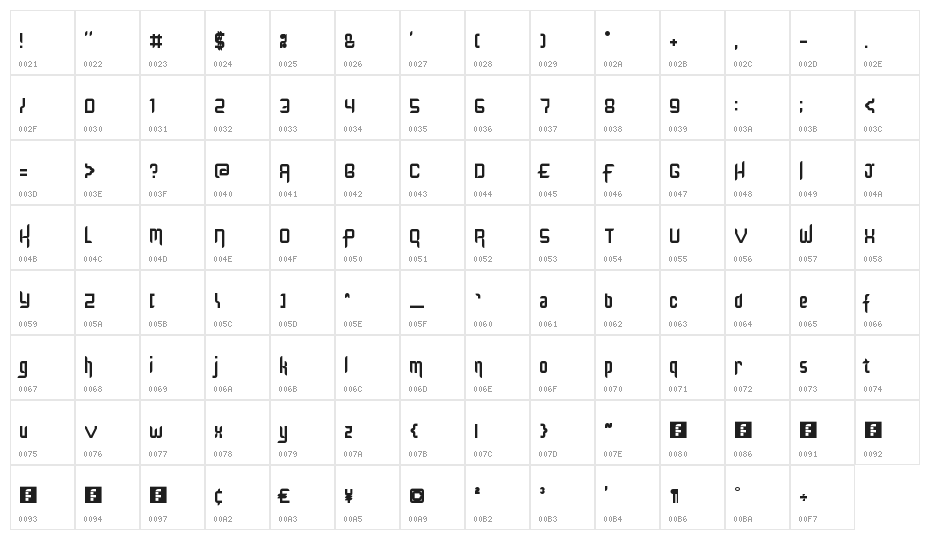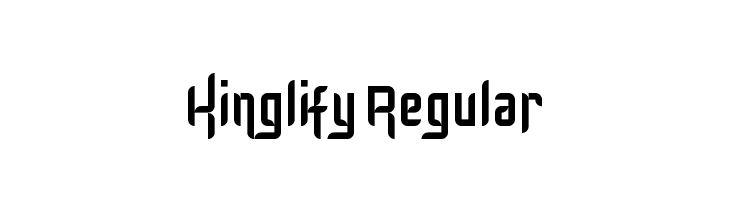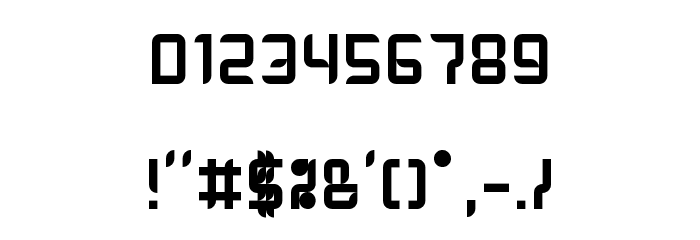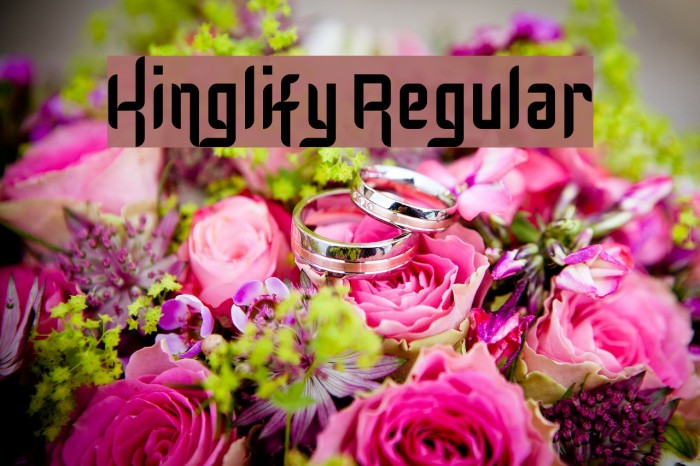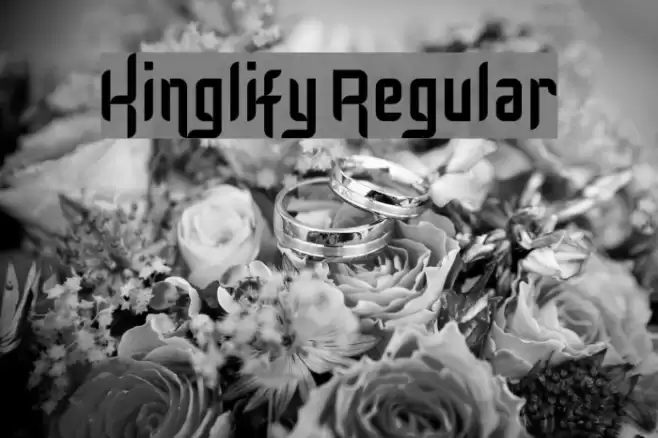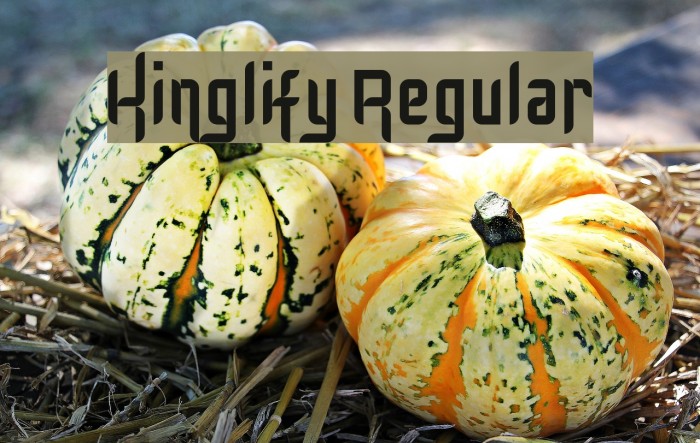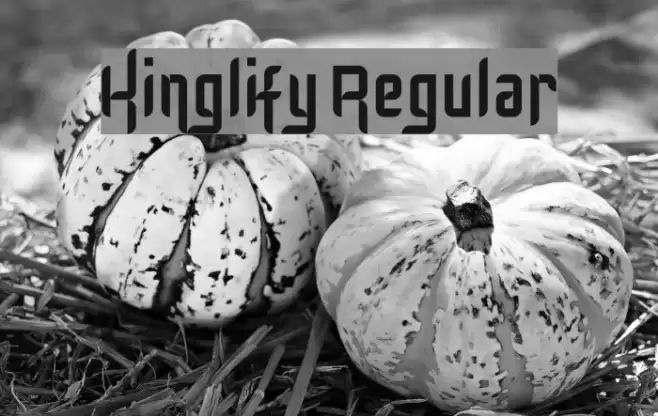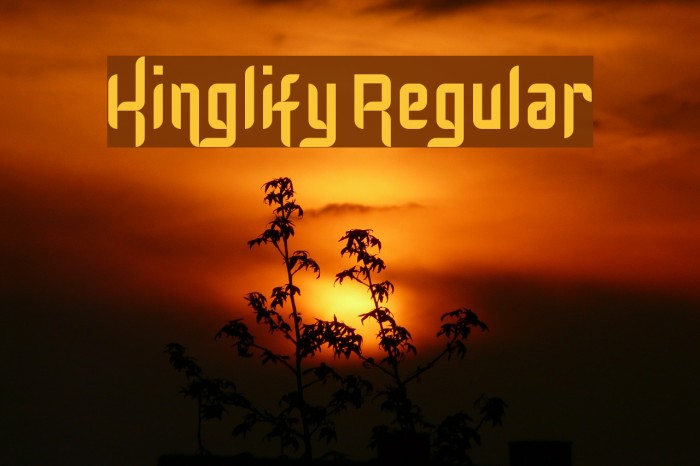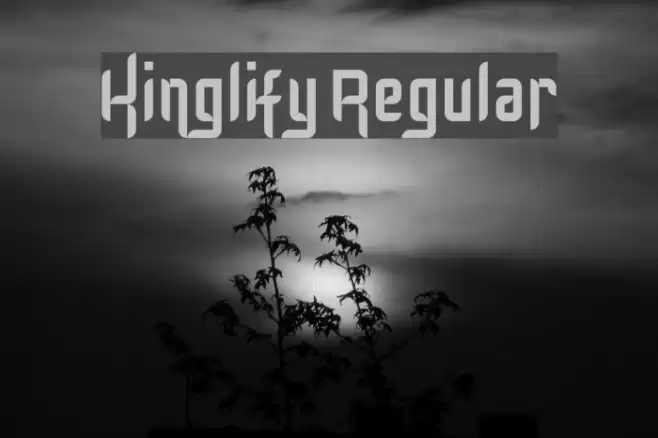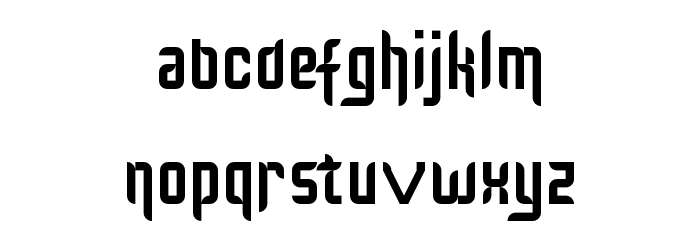
Kinglify Regular Font
Kinglify Regular Description
This font features a geometric and futuristic design with a strong emphasis on angular shapes and clean lines. The uppercase letters are bold and structured, with a consistent height that creates a uniform appearance. The lowercase letters maintain the angular theme but with a slightly softer touch, providing a harmonious balance. Numbers are distinct and easily readable, following the same geometric style. Special characters are designed to complement the overall aesthetic, ensuring consistency across all glyphs. The font's unique style makes it suitable for modern and tech-oriented projects.